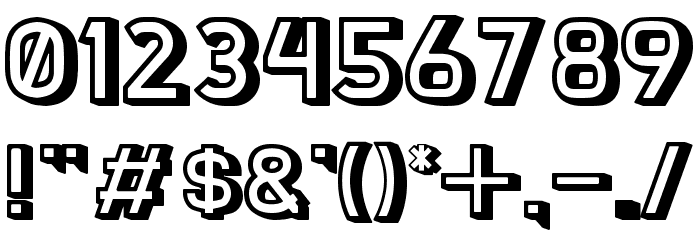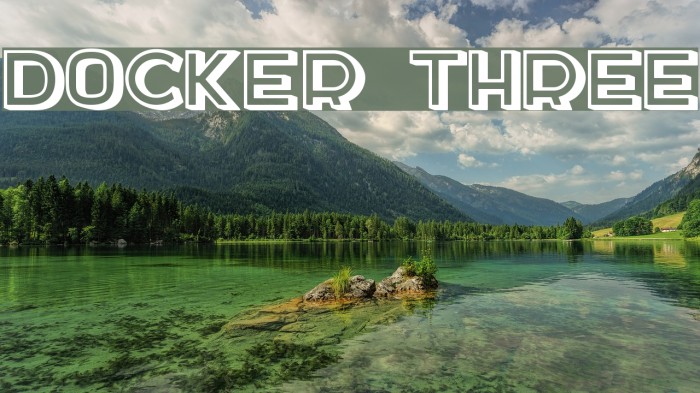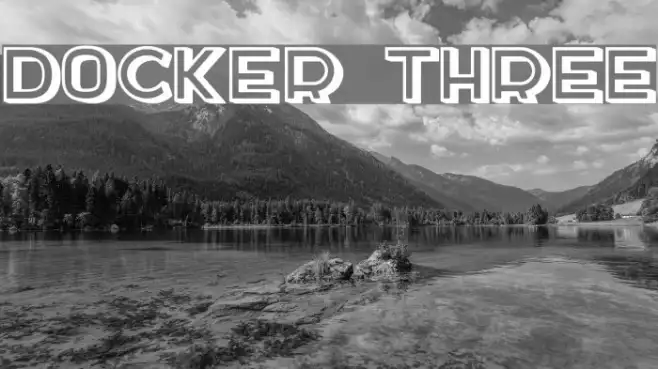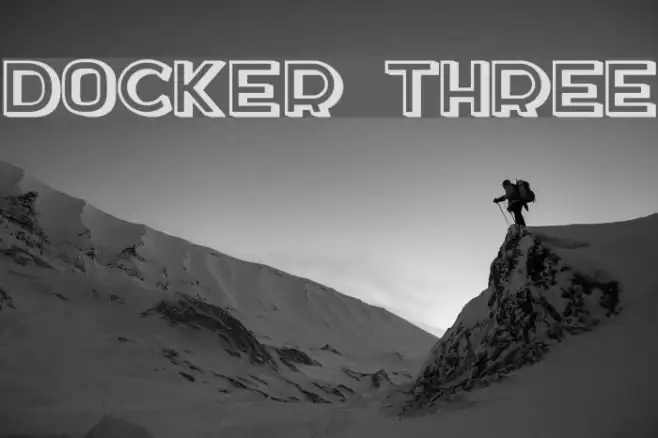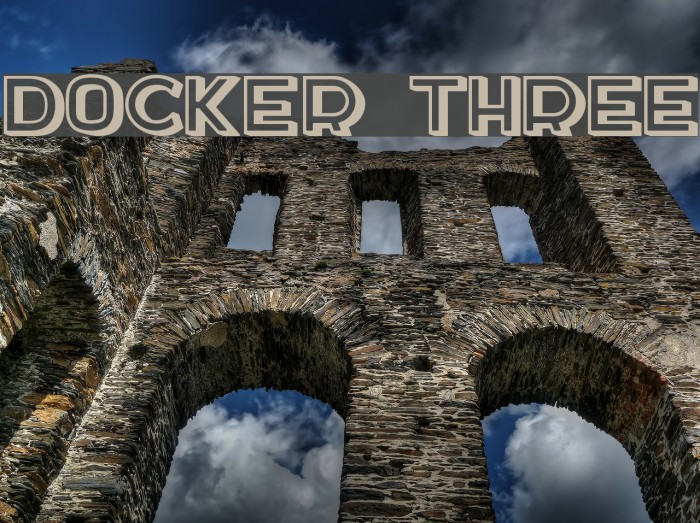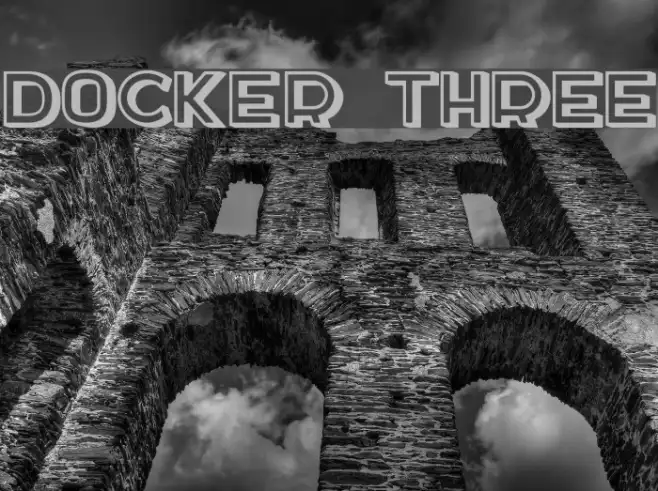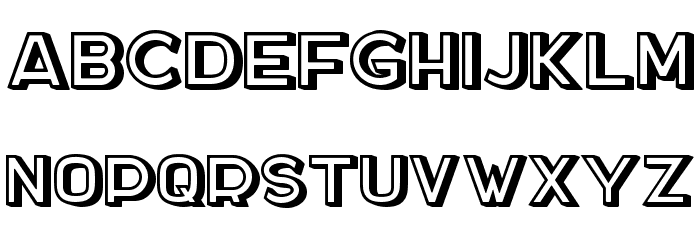
DOCKER THREE Font
This font features a bold, outlined style with a modern and impactful appearance. The uppercase letters are designed with a strong geometric structure, giving them a sense of stability and strength. The numbers and special characters maintain this consistent style, ensuring uniformity across all glyphs. The font's bold outline adds a three-dimensional effect, making it stand out in any design. Its clean lines and clear shapes make it highly legible, even from a distance. This font is ideal for projects that require a strong visual presence, such as branding and advertising materials.
A bold, outlined font with a modern, geometric style.
• Proposed Projects: Ideal for branding, advertising, posters, and signage where a strong visual impact is needed.
• Category: Decorative/Display
• Bold: Yes
• Italic: No
• Weight: Bold
• Width: Normal
• Character Spacing: Normal
• Contrast: Low
• Overall Style: Modern
• Use Case: Headlines, Logos, Posters